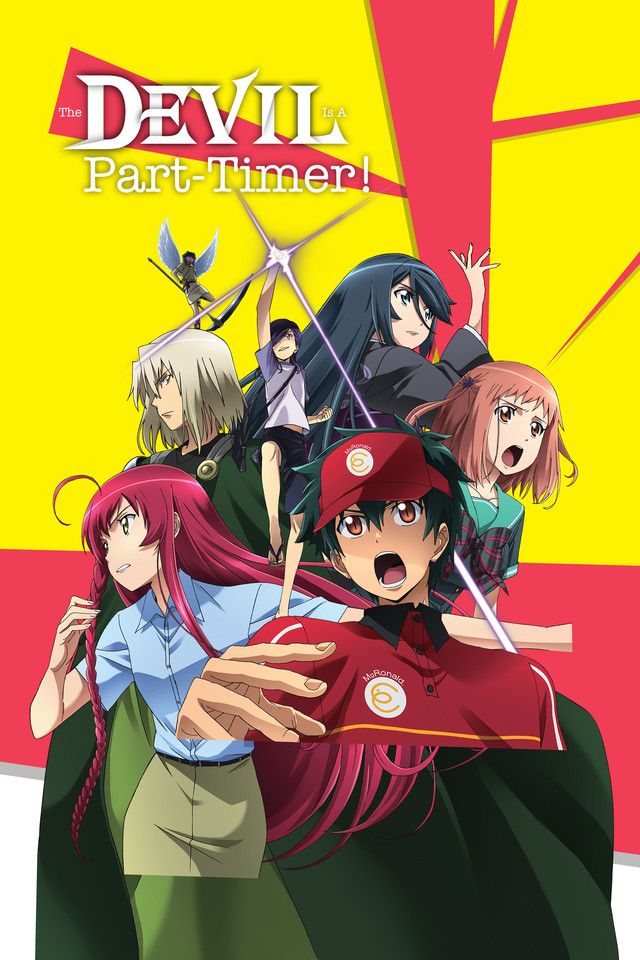
The Devil Is a Part-Timer Font
BookThe Devil Is a Part-Timer! is a Japanese light novel written by Satoshi Wagahara, with illustrations by Oniku. The story follows the demon lord Satan, who has been forced to flee to the human world after a failed attempt to conquer the fantasy world of Ente Isla. In order to survive in this new world, Satan takes on the identity of Sadao Maou and gets a part-time job at a fast-food restaurant.
ITC Algerian Regular, designed by Alan Meeks, appears in the title's "Devil" part, and American Typewriter Medium, a slab serif designed by Joel Kaden and Tony Stan is used in the title's other text.